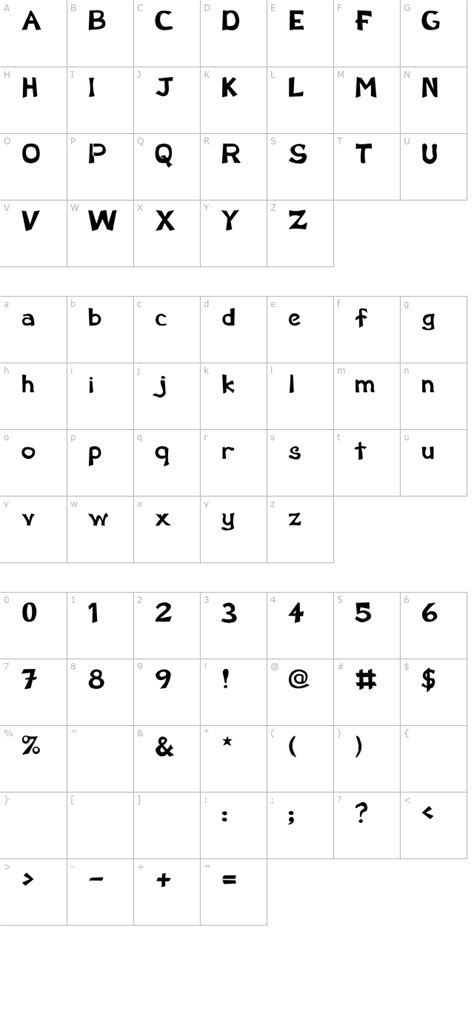
Hey guys! Today, we’re diving deep into the awesome world of typography, and the star of our show is the Ischwarzenberg font . If you’ve been on the hunt for a font that brings a unique blend of classic charm and modern flair, then you’ve come to the right place. We’re going to explore what makes this font so special, where you can snag it for your next design project, and give you some killer tips on how to use it effectively. So, buckle up, design enthusiasts, because we’re about to get our typography game on point!
What is the Ischwarzenberg Font?
First things first, what exactly is the Ischwarzenberg font ? This isn’t just any old typeface; it’s a carefully crafted design that aims to capture a specific aesthetic. Think of it as a bridge between historical influences and contemporary design needs. Often characterized by its distinct serifs, balanced proportions, and perhaps a touch of calligraphic elegance, Ischwarzenberg is designed to be both readable and visually striking . It’s the kind of font that can elevate your project from looking good to looking absolutely incredible . Whether you’re designing a logo, a website, a book cover, or even just a social media graphic, the right font can make all the difference, and Ischwarzenberg has that potential in spades. Its versatility is one of its strongest suits, allowing it to adapt to various contexts while maintaining its unique identity. Many designers are drawn to it because it doesn’t feel overly trendy; instead, it possesses a timeless quality that ensures your work won’t look dated anytime soon. This is crucial in the fast-paced world of design, where trends can come and go in the blink of an eye. So, when you choose Ischwarzenberg, you’re investing in a design element that has staying power.
Key Features of the Ischwarzenberg Font
To really appreciate the Ischwarzenberg font , we need to break down its key features. What sets it apart from the thousands of other fonts out there? Well, for starters, its design is meticulously detailed . You might notice subtle variations in stroke width, carefully formed serifs that add character without being distracting, and a generally well-balanced weight that makes it comfortable to read. Depending on the specific version or interpretation, Ischwarzenberg might lean towards a more formal, almost vintage feel , or it could have a slightly more modern, clean-cut edge . This adaptability is a huge plus. We’re talking about a font that can convey a sense of tradition and trustworthiness, but also a sense of sophistication and contemporary style. Some variations might include a range of weights – from light and airy to bold and impactful – giving you flexibility in your design hierarchy. Ligatures and alternate characters could also be part of the package, offering even more creative control and unique touches. The overall impression is one of elegance and professionalism . It’s not a font that shouts for attention; rather, it commands it with a quiet confidence. This makes it ideal for brands that want to project an image of quality, heritage, or refined taste. When you look closely, you’ll see the thoughtful construction in every letterform, contributing to a harmonious and aesthetically pleasing whole. This attention to detail is what separates a good font from a truly great one, and Ischwarzenberg definitely falls into the latter category. It’s a font that designers love to work with because it offers so much nuance and expressive potential.
Why Choose the Ischwarzenberg Font for Your Projects?
So, you’re probably wondering, “Why should I specifically choose the Ischwarzenberg font for my next big thing?” Great question, guys! The answer lies in its impressive versatility and unique aesthetic appeal . This font isn’t a one-trick pony. It can be used across a surprisingly wide range of applications. Need to design a sophisticated brand identity for a boutique hotel or a high-end fashion label? Ischwarzenberg can lend that air of luxury and exclusivity . Working on a historical-themed website or a print publication that needs a touch of classic gravitas ? Again, Ischwarzenberg steps up to the plate. But it’s not just for formal stuff! With the right pairing and context, it can also add a touch of personality and artistic flair to more contemporary designs, perhaps in creative agency branding or independent publishing. The legibility is often a standout feature, meaning your audience won’t struggle to read your message, even in smaller sizes or longer blocks of text. This is non-negotiable for any serious design work. Moreover, choosing a font like Ischwarzenberg can help your project stand out from the crowd . In a sea of generic sans-serifs and overused script fonts, Ischwarzenberg offers a distinct personality that can make your brand or content more memorable. It suggests that you’ve put thought and care into your design choices, elevating the perceived value of your work. It’s about making a statement without being loud . It’s the subtle nod to quality that resonates with your audience. Think about the impact of a well-chosen font – it sets the tone, conveys emotion, and guides the reader’s eye. Ischwarzenberg does all of this with a grace and style that’s hard to match. It’s a tool that empowers you to communicate your message not just effectively, but also beautifully. The careful balance it strikes between being familiar enough to be readable and unique enough to be memorable is its superpower.
Ischwarzenberg Font for Branding
When it comes to branding , the Ischwarzenberg font is an absolute gem. Think about it: a brand’s visual identity is built on consistency and recognition, and the typeface you choose plays a massive role in that. Ischwarzenberg can instill a sense of trust, heritage, and sophistication – qualities that many brands strive to embody. For businesses aiming for a premium market, this font communicates a level of quality and attention to detail that aligns perfectly with high-value products or services. Imagine a luxury skincare line using Ischwarzenberg for its packaging and website. It immediately signals elegance and efficacy. Or consider a craft brewery wanting to evoke a sense of tradition and artisanal quality; the font can add that authentic, established feel. It’s versatile enough to be used across all brand touchpoints, from the company logo and business cards to marketing materials, website copy, and even internal communications. This consistency ensures a strong, unified brand image. Furthermore, the unique character of Ischwarzenberg can help a brand carve out its niche in a crowded marketplace. It’s memorable without being overly trendy, meaning your brand’s visual identity will remain relevant for years to come. It’s the kind of font that makes people pause and appreciate the thoughtful design, adding a layer of perceived value. It tells a story – a story of craftsmanship, quality, and enduring style. When a potential customer encounters your brand using Ischwarzenberg, they get an immediate, subconscious impression of professionalism and refined taste. This is invaluable in building brand loyalty and attracting the right clientele. It’s not just about letters on a page; it’s about the emotional connection and perceived value that the right typography can create for your brand. It’s a strategic choice that pays dividends in how your brand is perceived in the market.
Ischwarzenberg Font for Editorial Design
Editorial design, guys, is where the Ischwarzenberg font truly shines. Think magazines, books, newspapers, and even engaging online articles. In these contexts, readability is paramount , but so is the ability to create a specific mood and guide the reader’s experience. Ischwarzenberg often excels here because it strikes that perfect balance. Its well-defined letterforms ensure that even long passages of text are easy on the eyes, preventing reader fatigue. The subtle details, like those elegant serifs or balanced stroke weights, add a layer of sophistication and visual interest that makes the content more inviting. Imagine picking up a novel with a title page set in Ischwarzenberg – it immediately sets a tone of quality storytelling. Or flipping through a high-end lifestyle magazine where the feature articles use this font; it enhances the perceived value and premium feel of the publication. It works wonderfully for headlines, subheadings, and body text, offering a cohesive typographic system. You can use its different weights to create a clear visual hierarchy, guiding the reader through the content smoothly. For example, bold weights can be used for impactful headlines, while regular or light weights are perfect for the main body copy. This ensures that the information is not only accessible but also presented in an aesthetically pleasing manner. Furthermore, Ischwarzenberg can lend a sense of authority and credibility to your editorial content, which is crucial for news outlets, academic journals, or any publication aiming to be taken seriously. It’s a font that suggests substance and thoughtful presentation. It helps to create an immersive reading experience, making the content itself more engaging and memorable. In essence, Ischwarzenberg in editorial design is about making content look good, feel good, and be easy to consume, all while maintaining a distinct and elegant character . It’s a workhorse that brings a touch of class to any printed or digital page.
Conclusion: Elevate Your Designs with Ischwarzenberg
So there you have it, folks! The Ischwarzenberg font is a powerful tool in any designer’s arsenal. Its blend of classic elegance and modern readability makes it incredibly versatile for everything from branding and editorial design to web and print projects. By understanding its unique characteristics and following best practices for usage – like smart font pairing, creating clear hierarchy, and paying attention to spacing – you can truly elevate your designs. Remember to always download fonts from reputable sources and be mindful of licensing to keep things legal and professional. Whether you’re a seasoned pro or just starting out, exploring fonts like Ischwarzenberg can unlock new creative possibilities and help your projects make a lasting impression. Go ahead, give it a try, and watch your designs transform!